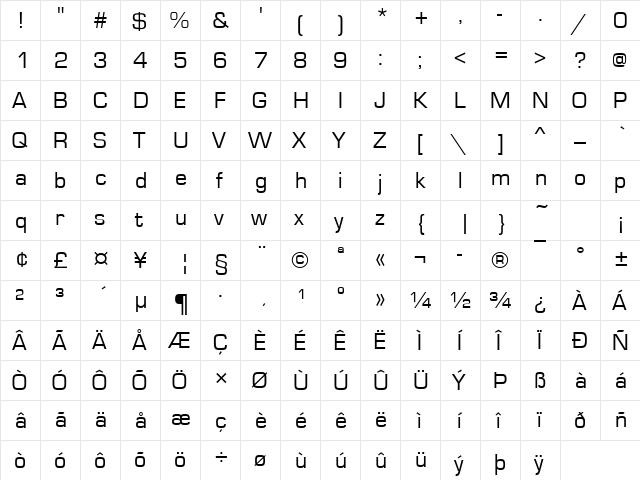
EurostileT Regular
Design Context for EurostileT Typeface
EurostileT offers clean, dependable letterforms without strong stylistic allegiance, making it a practical choice for designers who need flexibility.